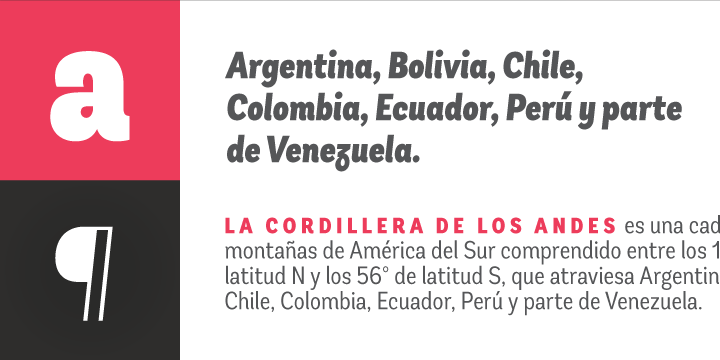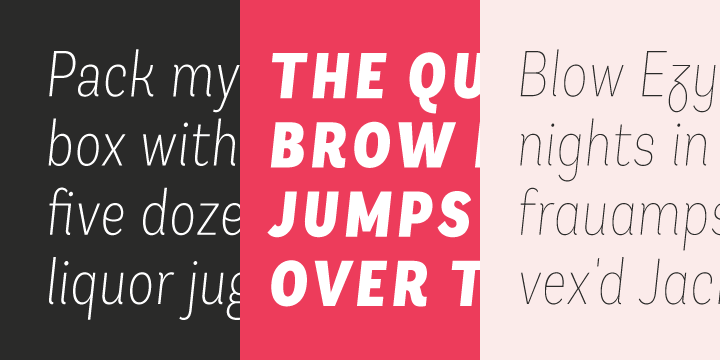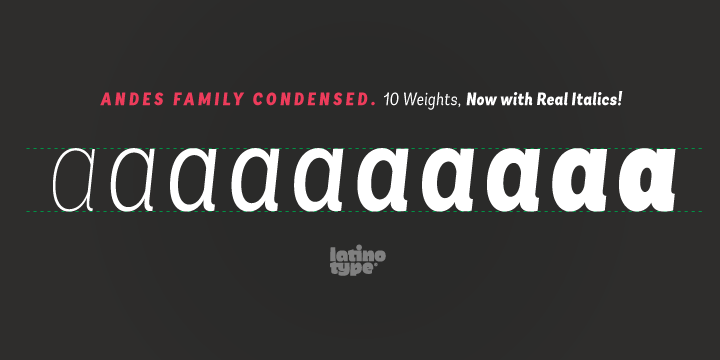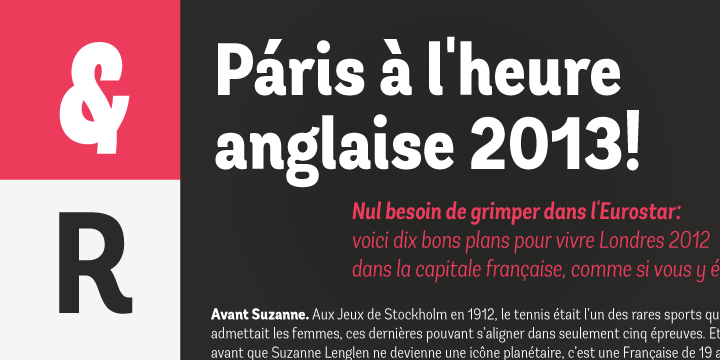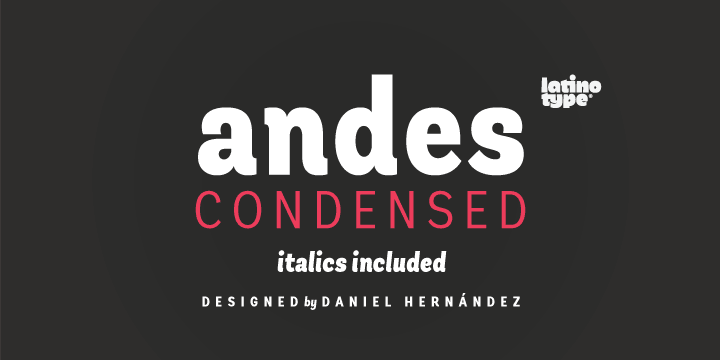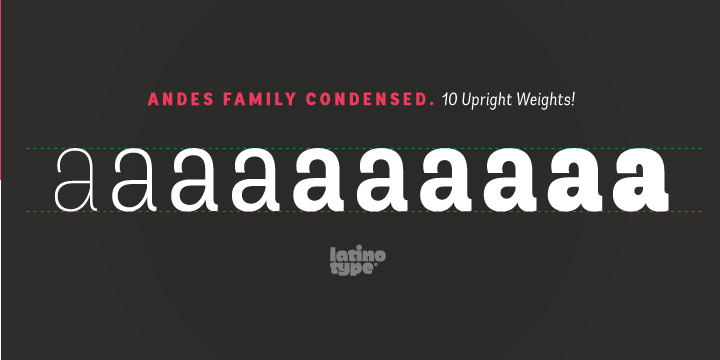
Andes Condensed is a sans serif font family. This typeface has twenty styles and was published by Latinotype.
Andes, designed by Daniel Hernández, is a display typeface that has neo-humanist characteristics. Its different terminals, among other elements, give it a look of mixed typography.
Andes is a typeface with 10 Upright weights ,10 Italics & Condensed version, ranging from Ultra Light to Black, each of the same x-height. This typeface contains additional italic glyphs (a, y, z, g) that help to emphasise text or words. Andes is based on the design of Merced and both of them share several features.